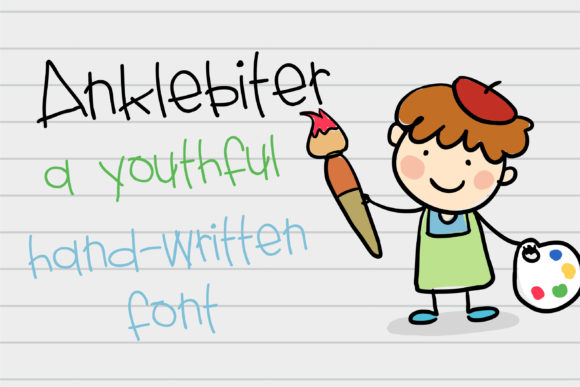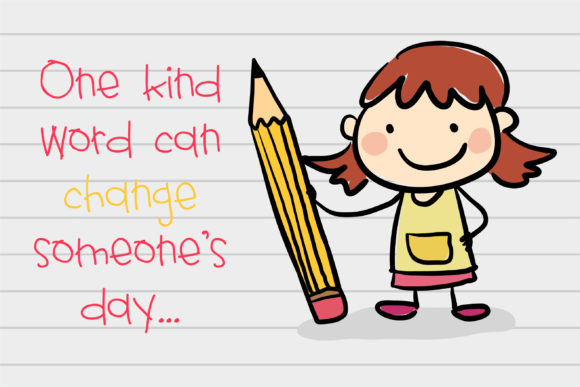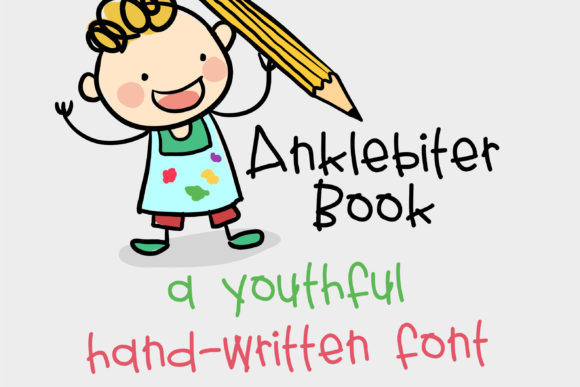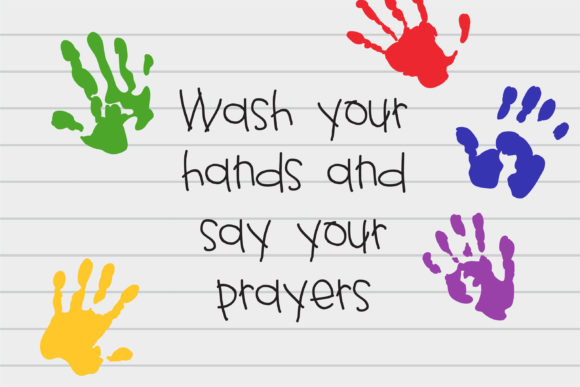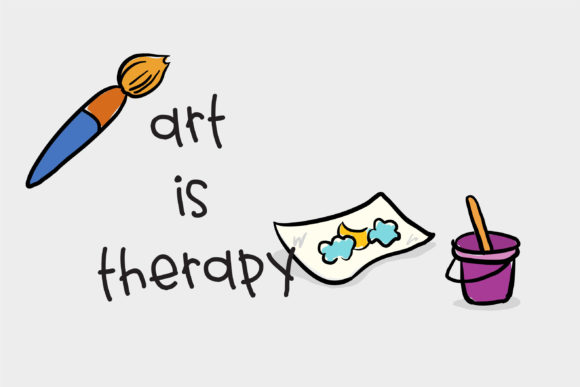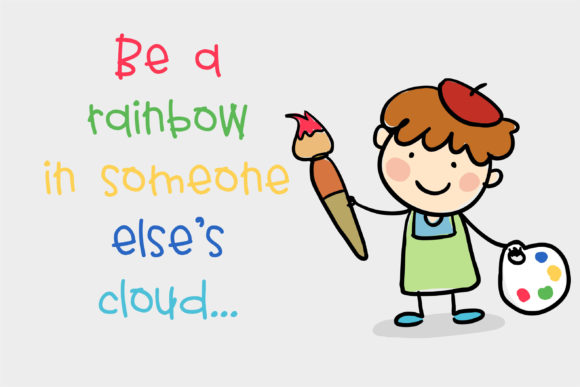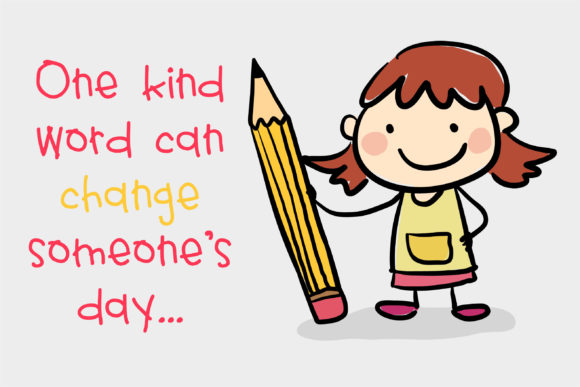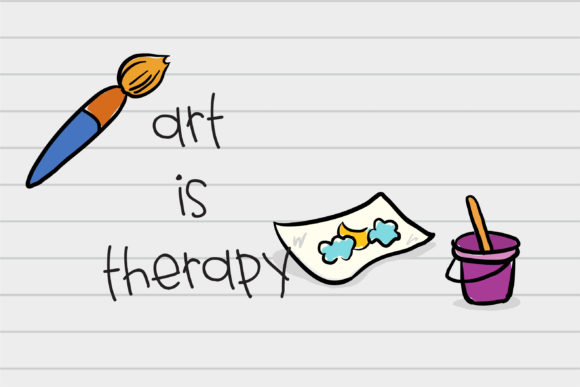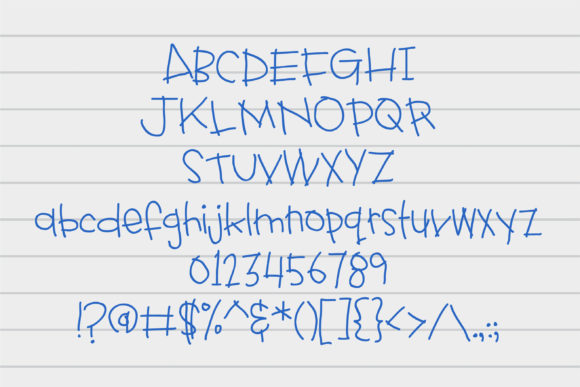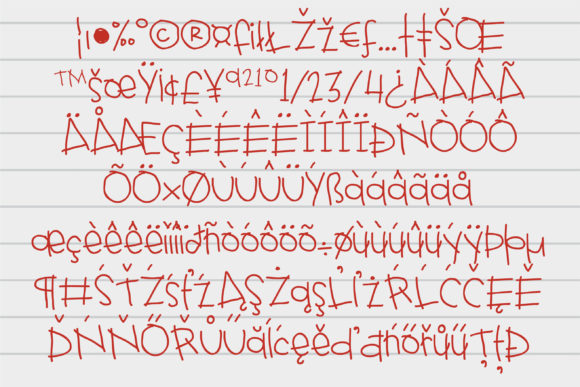
Anklebiter Font
About Anklebiter Font
Anklebiter is a youthful and cute handwritten font. Its playful style makes it perfect for any design you can think of. Add it with confidence to your creative projects, and notice how they capture everyone’s attention!